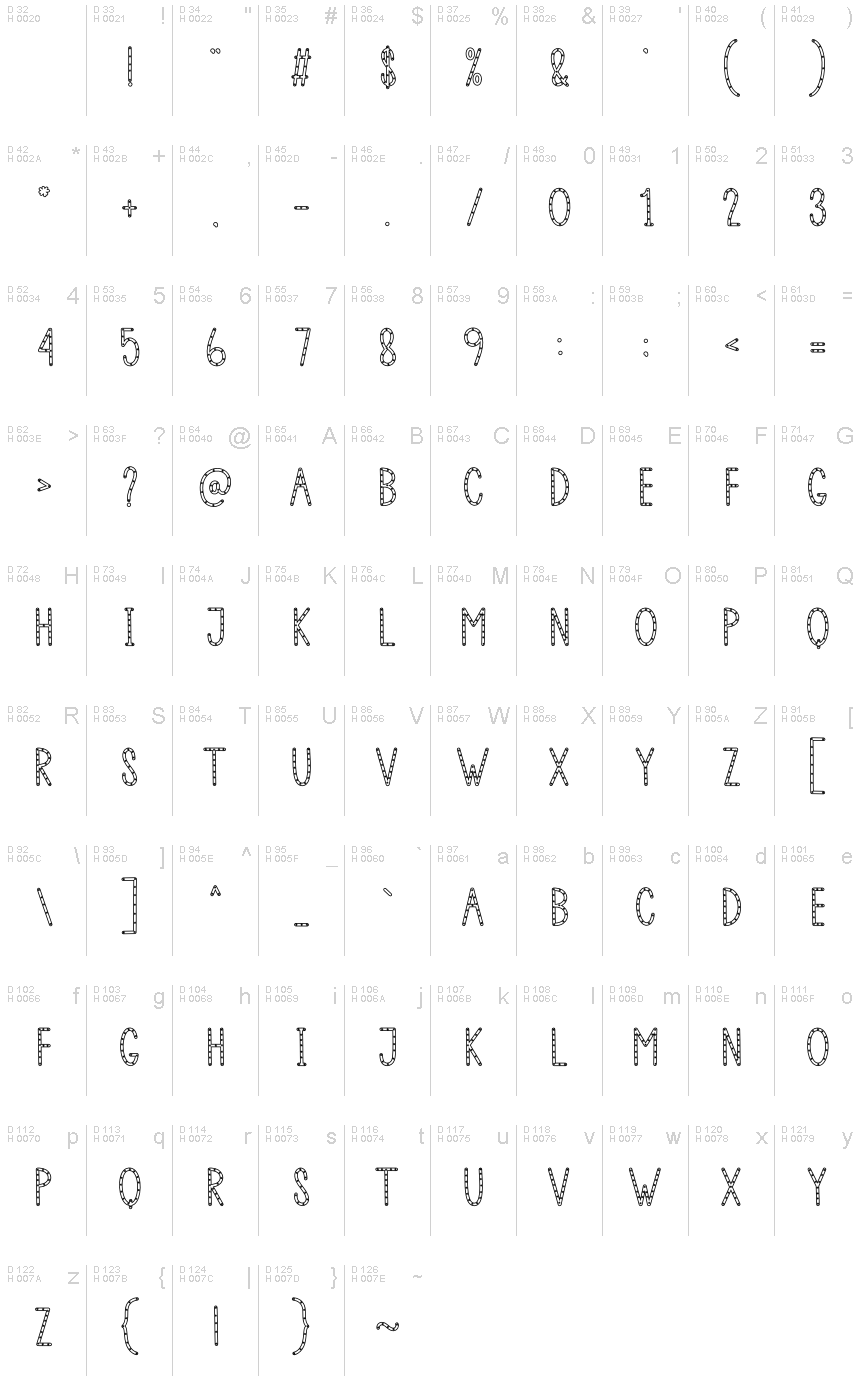
Star Out
Star Out is a sweet and friendly handwritten display font crafted by Andi Moz. This playful and charming typeface exudes a touch of whimsy, with its softly rounded letterforms and delightful, organic aesthetic. The condensed width adds a touch of elegance, while the decorative style lends a sense of warmth and approachability to the overall design.
This font's versatility shines through, making it a wonderful choice for a variety of design projects. From wedding invitations and greeting cards to social media graphics and product packaging, Star Out's unique character is sure to add a delightful, personalized touch to any design.